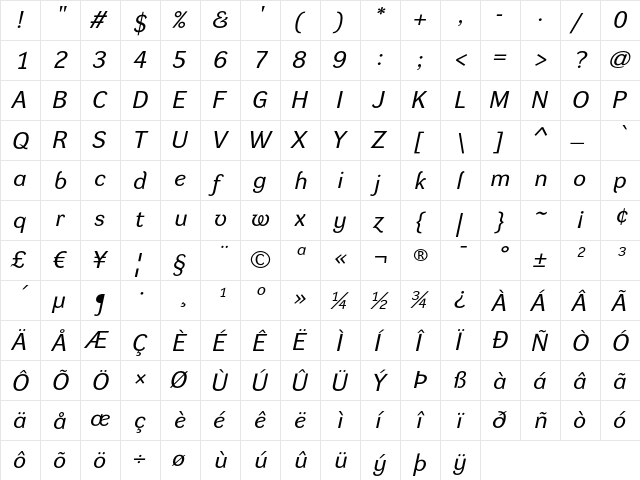
DynaGrotesk RE Italic
| Foundry | Frantisek Storm, stormtype.com |
Design Context for DynaGrotesk RE Typeface
DynaGrotesk RE has the quiet confidence of well-executed sans-serif typography: versatile, unobtrusive, and dependable at any size. The dynamic lean of this cut emphasises speed and emphasis in any layout.
Font Pairing: Works well alongside a characterful serif or display font that can carry the expressive load while DynaGrotesk RE handles the functional copy.
Pro Tip: Pair DynaGrotesk RE with a display or serif font for headlines — its neutral character makes it an excellent supporting player in complex typographic systems.